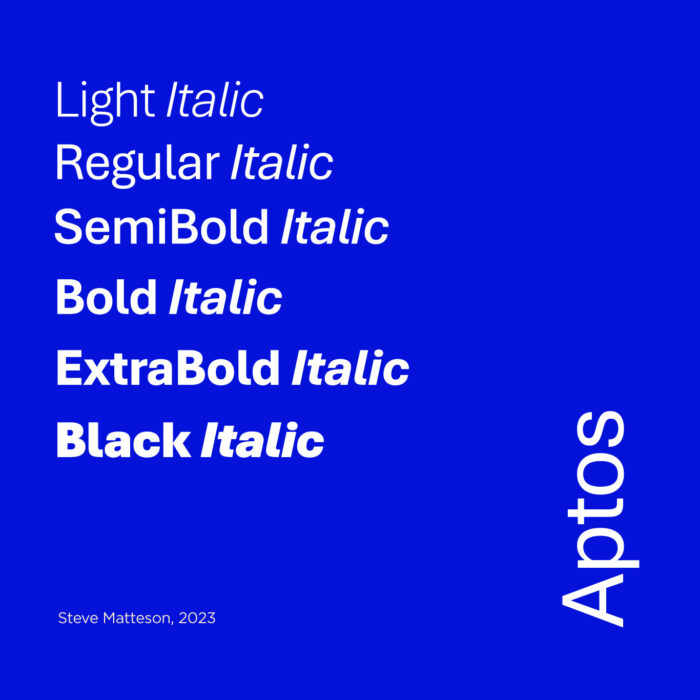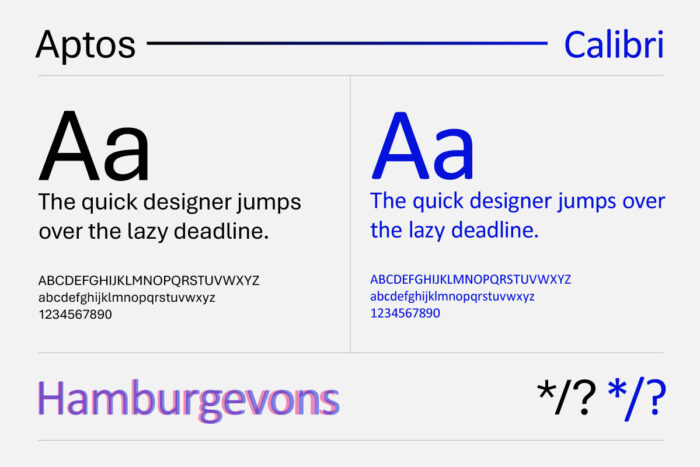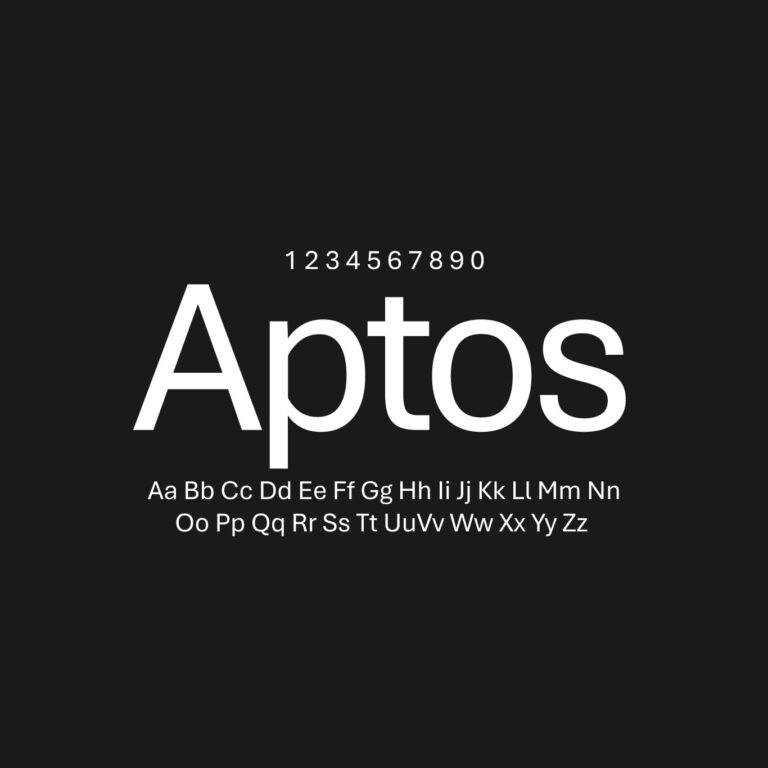
Download the Aptos font family for free in TTF format. This package includes 12 styles covering Light, Regular, SemiBold, Bold, ExtraBold and Black weights with matching italics. Designed by Steve Matteson, Aptos is Microsoft’s current default Office typeface and works especially well for Word documents, PowerPoint presentations, spreadsheets, reports, resumes, user interfaces and clean professional layouts.
The History of Aptos
Microsoft introduced five possible replacements for Calibri in 2021: Bierstadt, Grandview, Seaford, Skeena and Tenorite. Each family represented a different approach to the modern sans serif, and Microsoft added all five to the Microsoft 365 font menu so users could try them in real documents and presentations.
Bierstadt, designed by Steve Matteson, was selected as the new Office default after the testing and feedback period. Matteson had created it as a contemporary grotesque inspired by Swiss typography, using precisely cut terminals and rational proportions while introducing enough organic detail to prevent the design from feeling mechanical.
Before the wider rollout, Bierstadt was renamed Aptos after the coastal town in Santa Cruz County, California. Microsoft announced the change in July 2023 and began introducing Aptos as the default font across Word, PowerPoint, Excel and Outlook, replacing Calibri after its long run as the familiar face of Office documents.
Aptos Font Family Versions
The standard Aptos family is designed for general document text, but Microsoft also developed related versions for more specific uses. Aptos Display has tighter spacing and sharper proportions for large headings, Aptos Narrow fits more text into limited horizontal space, Aptos Mono provides fixed-width characters for technical content, and Aptos Serif introduces a companion serif voice for more formal documents and editorial layouts.
Aptos vs Calibri
Calibri has softer corners, narrower proportions and a more visibly humanist construction. Aptos feels firmer and more structured, with straighter terminals, clearer joins and a stronger connection to Swiss-style grotesque typography. Both fonts are intended for everyday Office use, but Aptos produces a more contemporary and controlled page texture.
The two families are not metrically identical. Replacing Calibri with Aptos in an existing document can therefore change line breaks, table widths or pagination. For new presentations, reports and templates, Aptos is the more current Microsoft default; Calibri remains useful when visual consistency with older Office documents is important.
Character and Language Support
Aptos includes extended support for Latin, Greek and Cyrillic writing systems, together with Vietnamese characters and diacritics. This makes it suitable for multilingual business documents, international presentations, reports, interfaces and templates that require broader coverage than a basic Latin font.
Calibri is the most relevant comparison because it was the previous Microsoft Office default, although its softer curves give it a noticeably different character. Segoe UI shares Aptos’s practical Microsoft-oriented tone, while Arial and Helvetica Neue provide a more conventional neo-grotesque appearance. Inter, Open Sans and Source Sans 3 are useful open-source alternatives for interfaces, reports, presentations and other clean professional layouts.